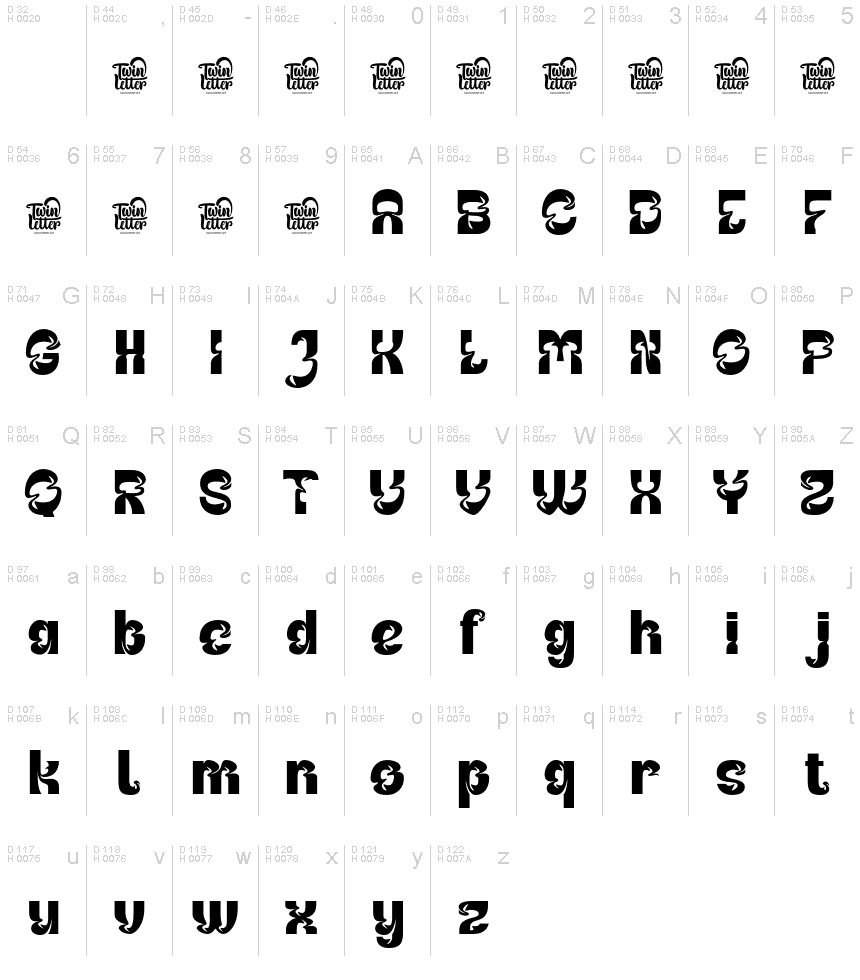
Dive into the retro-futuristic vibe with Mawur, a bold and groovy display font meticulously crafted by Twinletter. Mawur's semi-expanded letterforms exude a sense of confidence and zest, perfect for designers aiming to infuse their creative projects with a dose of nostalgia wrapped in a modern twist. The font's distinctive curves and daring shapes capture the essence of the '70s while remaining grounded in contemporary design sensibilities.
Whether you're crafting eye-catching headlines for editorial pieces or looking for that standout typeface for branding, packaging, or poster design, Mawur offers versatility without sacrificing personality. Its unapologetically bold style makes it an ideal choice for projects that demand attention, ensuring your message isn't just seen-it's remembered. Embrace the charm of Mawur and elevate your designs with a touch of groovy elegance today!